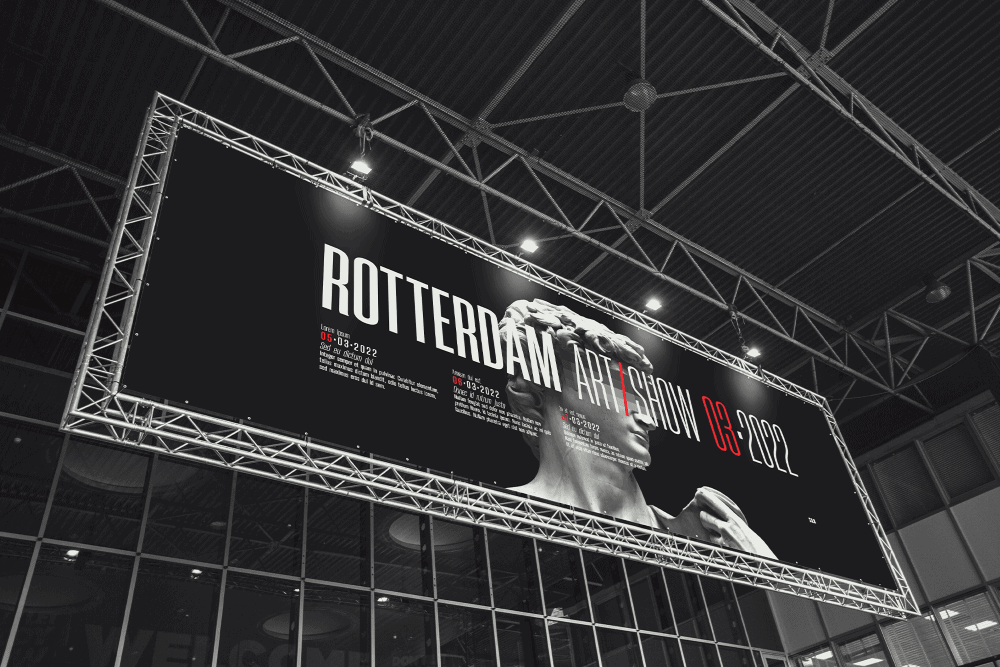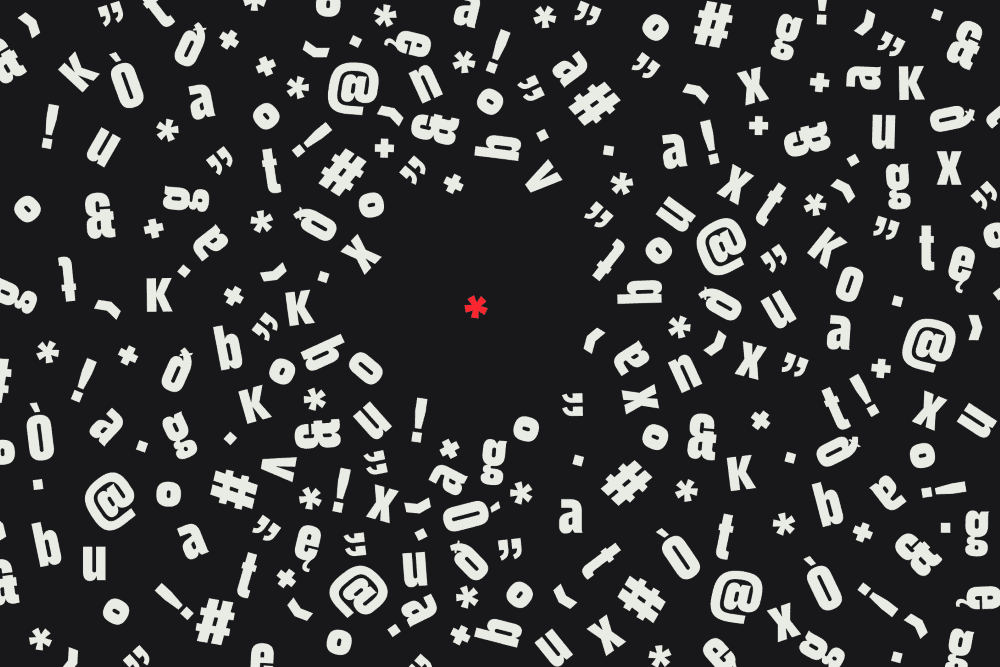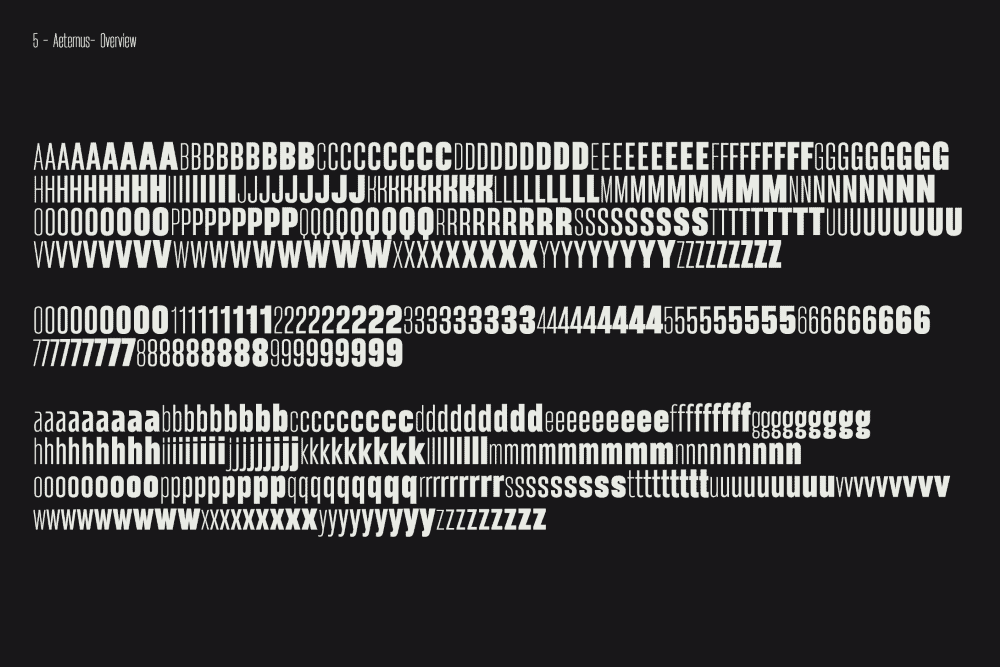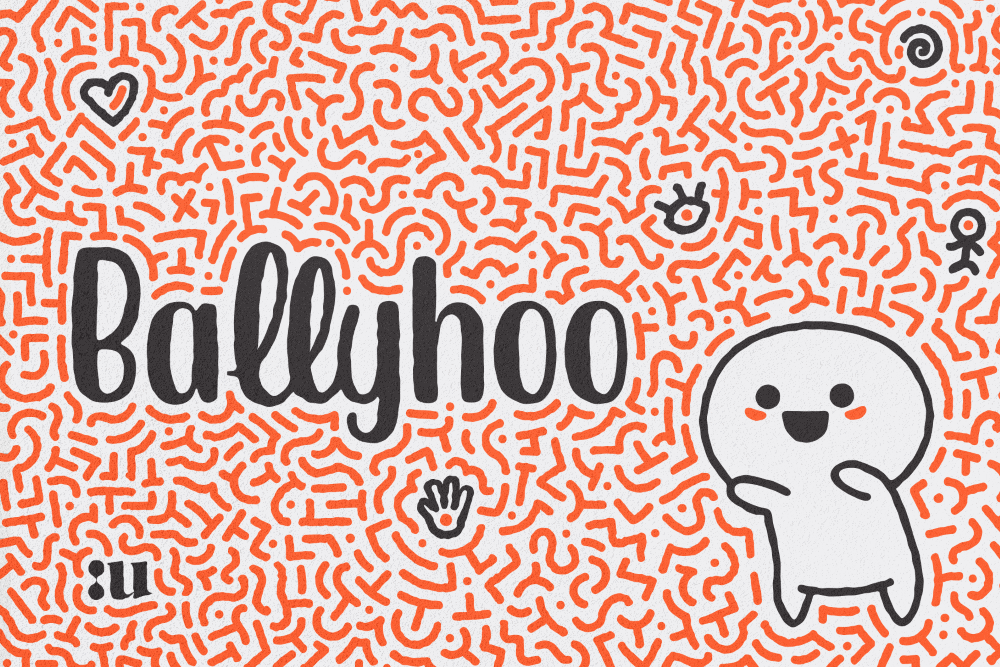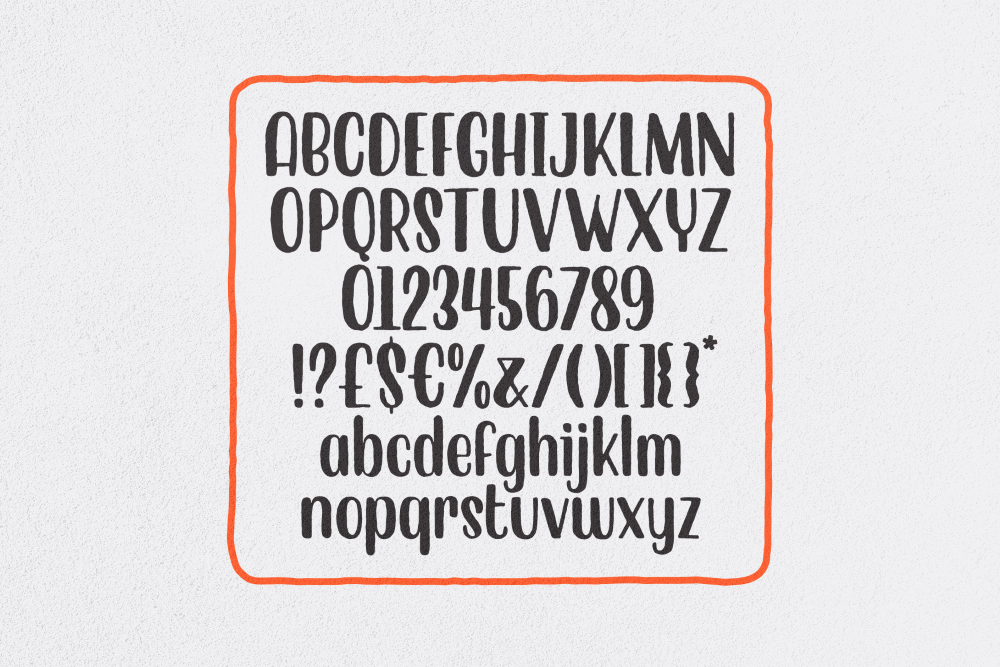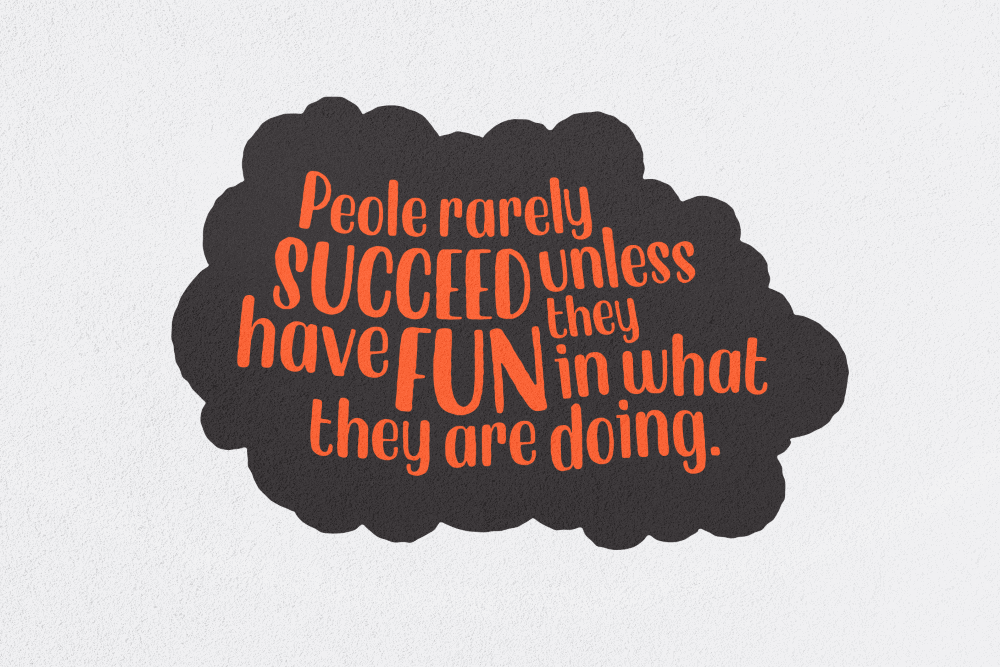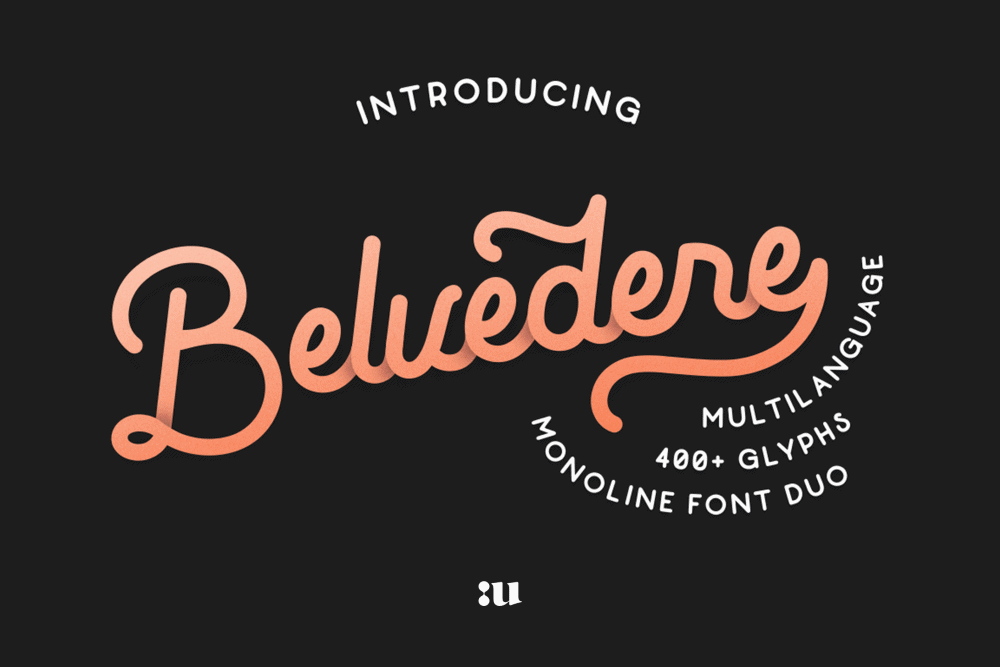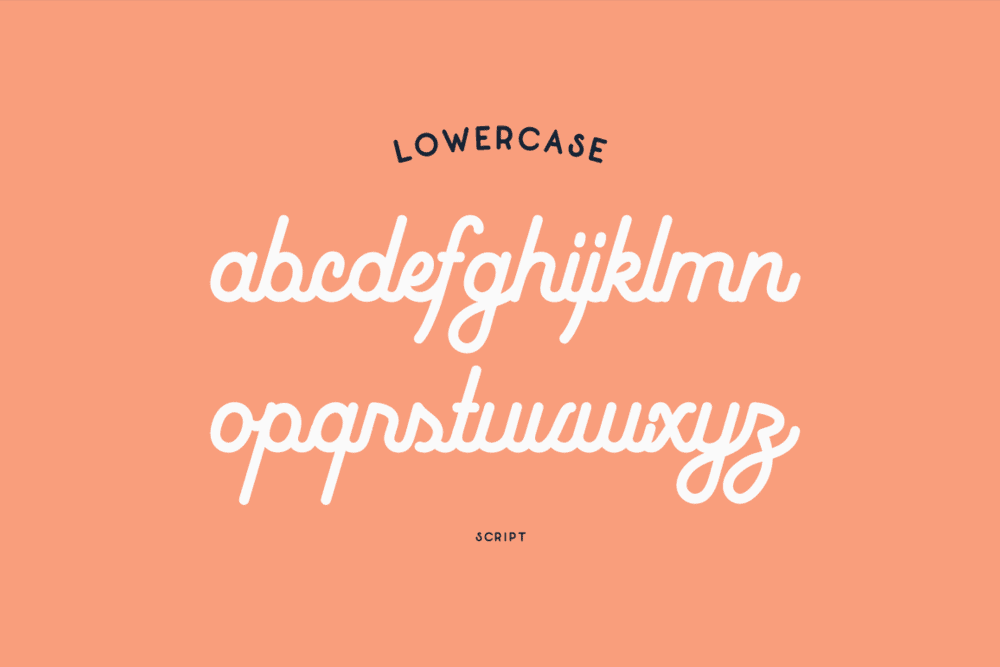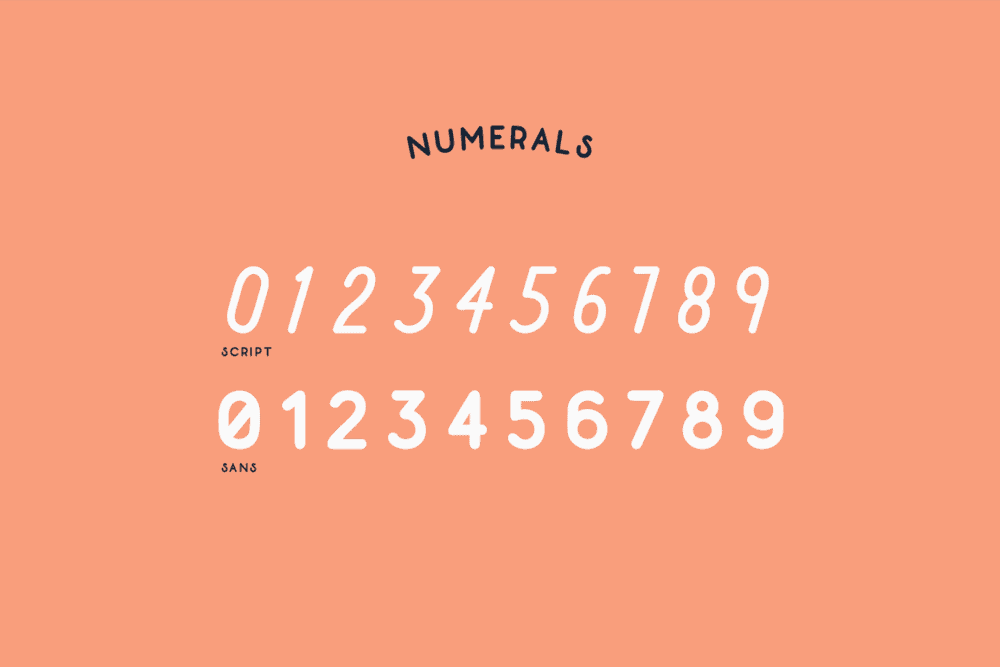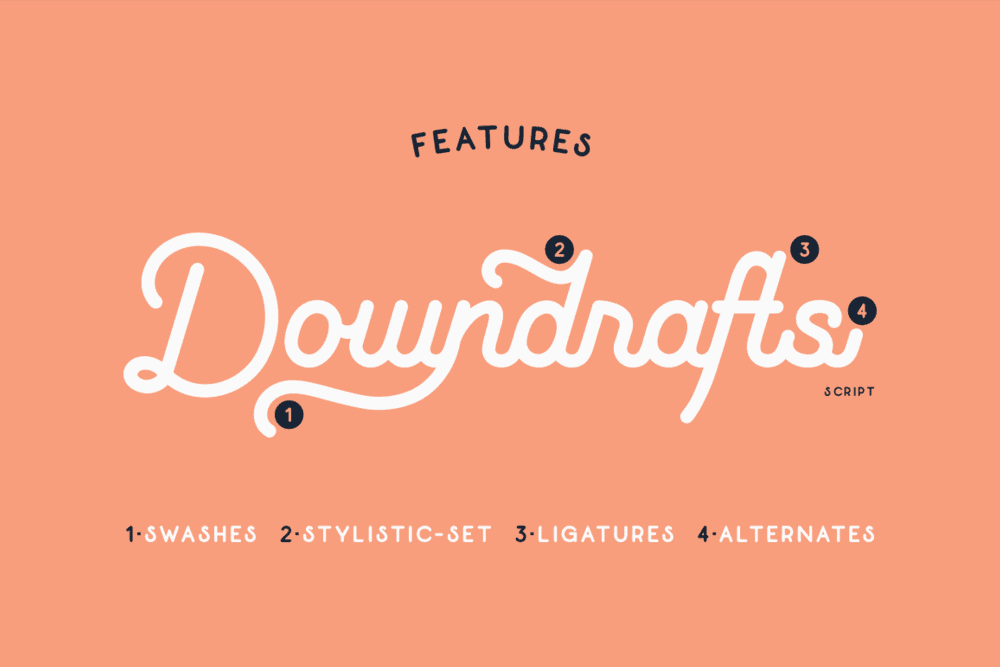
130+ Professional Business Fonts Bundle, 23 Complete Font Families & Variable Fonts
We’ve got a brand new bundle of absolutely stunning professional business fonts that’ll cover all your bases and typographic needs with 23 unique font families and variable fonts in different styles, including Serif, Slab-Serif, Sans-Serif, Cursive, Mono, creative display styles, Retro & Futuristic, mid-century vintage and others!
With this exclusive bundle you will receive a total of 130+ OTF fonts with several weights and matching true italics, jam packed with OpenType features and bonus content like vector illustrations, patterns and decorative elements that you can use to create typographic compositions for display purposes or apply on editorial designs, body-copy, titles/headlines and even logo designs, branding, etc.
Every OTF font features multi-language support and a variety of OpenType features like ligatures, stylistic alternate character sets, numerals, old style figures, swashes and more.
The package also contains 2 variable fonts, serif & sans-serif, with 11 Variable TTF fonts with different weights & heights as well as matching italics.
Font families in this bundle
Aeternus Variable Font
Aeternus is a geometric Sans Serif Variable typeface with matching italics that combines different heights and weights to provide versatility in any application context be it body-copy, titles/headings, or large display compositions.
Starting from two constant heights, Nano and Tall, this font family exploits the weight variation and delivers a full array of nine instances, including all weights ranging from Thin to Heavy.
Argon
A functional modern-grotesk font, inspired by the aesthetics of 1950’s Swiss rationalism. The mono-linear solid design and the combination of sharp and rounded curves lead to a contemporary interpretation of the classic grotesque look, without compromising legibility, even at small sizes.
Conceptually rationalist, Argon has been designed to emphasize the harmonious variations and can be effortlessly applied in a wide range of text use, from advertising to book design.
Ballyhoo
This irreverent font is fully loaded with slightly irregular chunky characters which can add a bunch of ballyhoo personality to any design project. Get noticed with an ad campaign or hype up any logo design, apparel, printed stationery, mugs and much more!
Ballyhoo contains more than 350 glyphs and covers several languages based on the Latin alphabet; the quirky experience is enhanced with OpenType (OTF) support including some neat ligatures.
Belvedere
Belvedere is a mono-line font duo which has been inspired by the typography style of two important decades, the never outdated 40’s and 50’s. This vintage font family is composed by a mono weight cursive script and a complementary sans-serif. All the characters have been designed to enhance the overall smoothness, which is undoubtedly useful to maximize the readability.
Belvedere is a versatile font family which includes more than 400 characters and covers several languages based on the Latin alphabet; the whole font design has also been completed with extensive alternates, ligatures and swashes sets.
Carosello
Truly inspired by vintage ads, created with a real sharpie to display common hand-written imperfections while preserving typical glyphs style of that historical period.
This hand-made font is highly versatile and allows you to create stunning 1950s hand-lettered quotes, inspirational phrases and vintage designs in a matter of seconds
Gutenberg
A sincere tribute to Johannes Gutenberg who introduced printing to Europe with his mechanical movable type printing technique. Certainly one of the most important invention of the second millennium. Gutenberg is a sans serif font which presents sketchy edges with irregular scheme imperfections to simulate the transferred ink.
This versatile all caps font family includes more than 430 characters and covers several languages that use the Latin alphabet, completed with an extensive accents and diacritics set.
It comes in Regular and Bold weights optimized for maximum adaptability. As a matter of fact each font features 36 attractive alternates and 30 ligatures, which expands the possibilities when composing